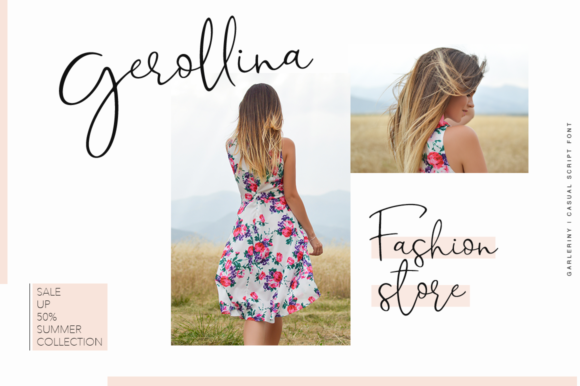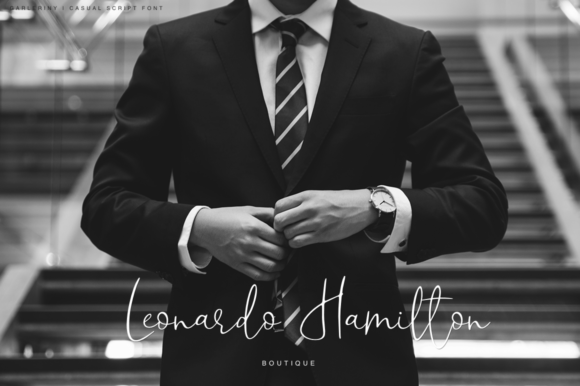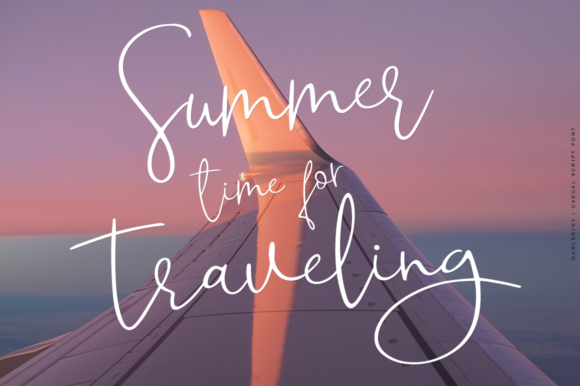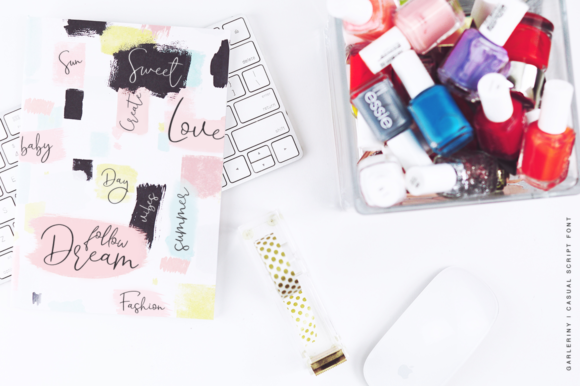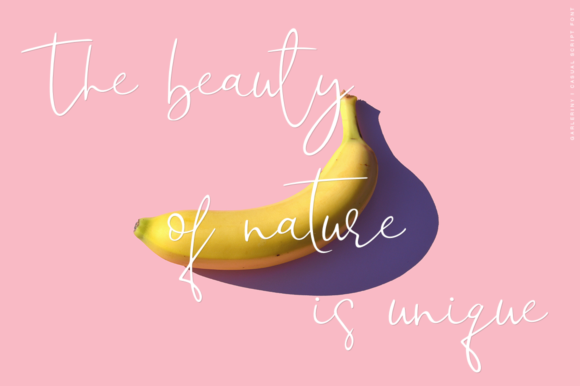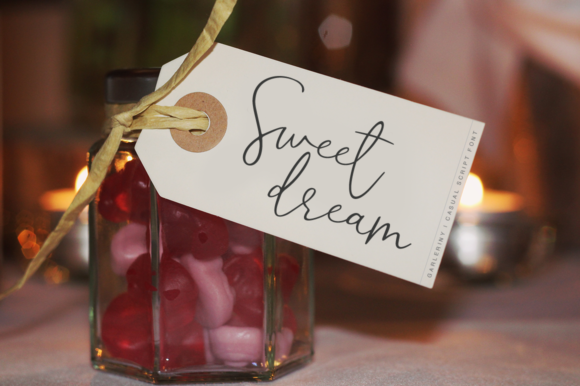
Discover the Charm of Garleriny Font: A Fresh Take on Handmade Calligraphy
A Personal Review of Garleriny Font
What I Love About Garleriny ✨
- 💕 Unique and elegant handwritten style that’s perfect for branding, wedding invitations, and more
- ✅ Highly versatile and adaptable to various design projects, from logos to stationery
- 🎨 Beautifully crafted with attention to detail, giving it a premium feel
- 👍 Easy to read and understand, making it a great choice for body text and headings
While Garleriny is an amazing font, there are a few things to keep in mind:
- 🤔 Some characters may require manual kerning for optimal spacing
- ⚠️ Limited availability of certain OpenType features, such as ligatures and stylistic alternates
Garleriny font comes with a range of OpenType features and glyphs that can enhance your design. Here are a few tips on how to access them:
The Story Behind Garleriny Font
Garleriny font was designed with love and care by a talented type designer who wanted to create a unique and elegant handwritten font. Inspired by traditional calligraphy, Garleriny brings a touch of sophistication and whimsy to any design project.
Q: Is Garleriny font suitable for body text?
A: While Garleriny is primarily designed for headings and titles, it can be used for body text in certain contexts, such as invitations, menus, and other display text.